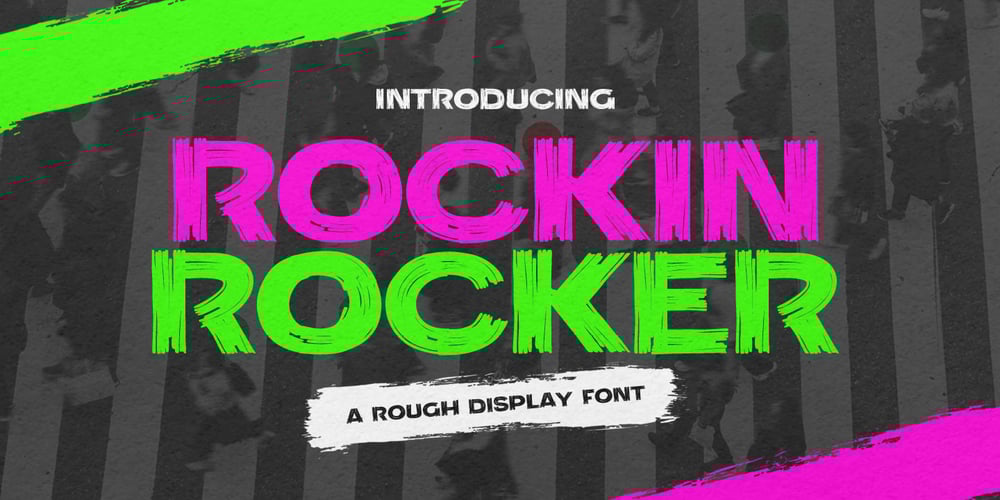
Rockin Rocker Font Family was designed by Abdul Malik Wisnu, Anang Fibriyanto and published by Gassstype. Rockin Rocker contains 1 styles and family package options. Hello Everyone, introduce our new product Font Rockin Rocker This Is A Rough Display Font.This is a Textured Natural Style and classy style with a clear style and dramatic movement.That is has charming, authentic and relaxed characteristic more natural look to your text.